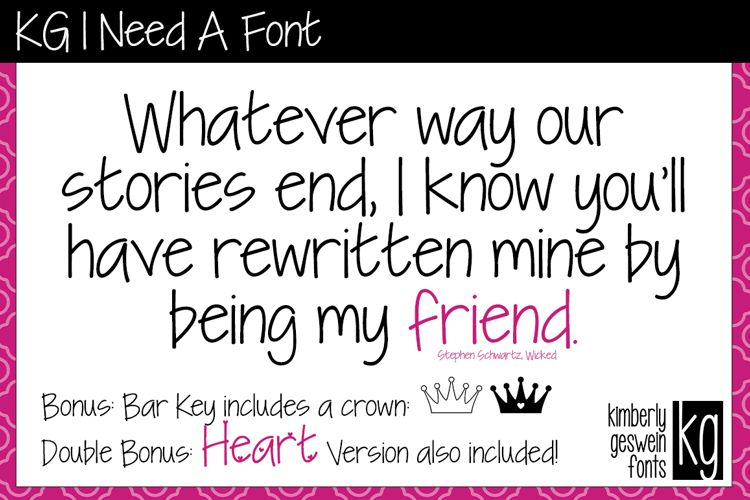
KG I Need A Font
About KG I Need A Font
KG I Need A Heart Font Style
A neat handwritten font in 2 styles- one with hearts and one without hearts. Please pay for commercial use at http://kimberlygeswein.com